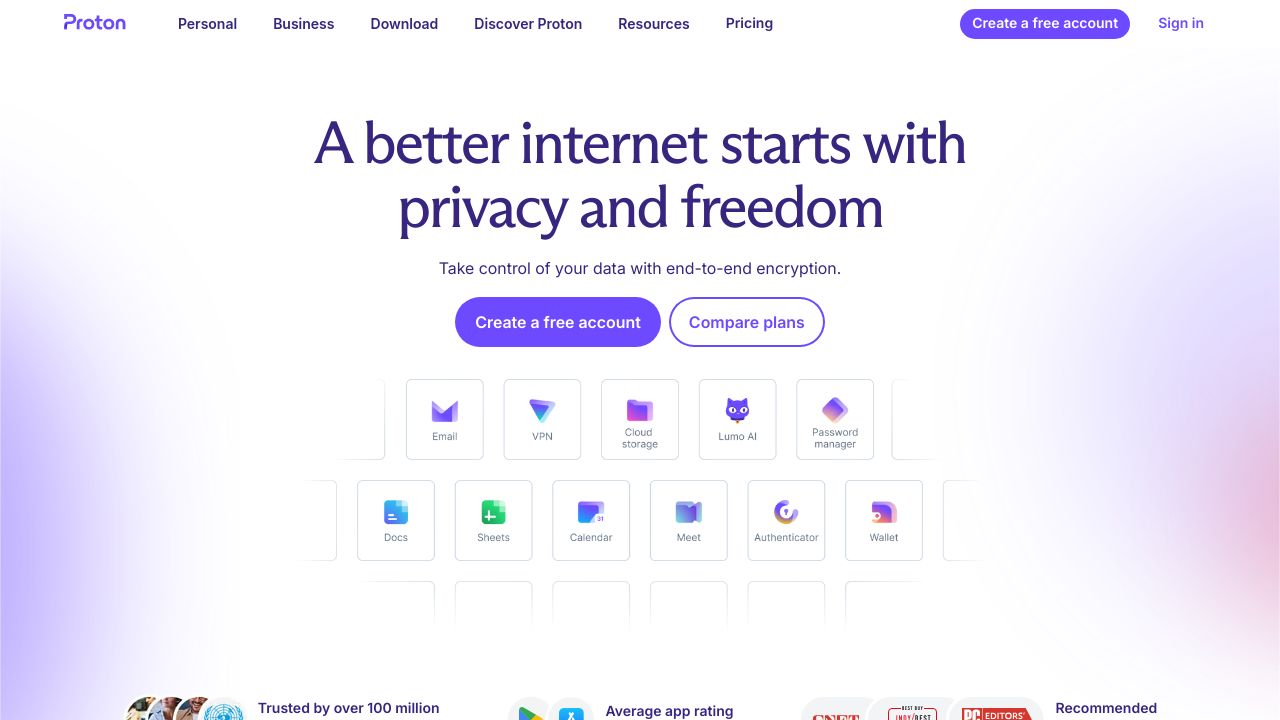
Proton.me uses ProtonSans, ProtonSerif, Inter and ABC Arizona Flare as its main typefaces. Consolas, Menlo, Segoe UI Emoji and Apple Color Emoji are declared as fallbacks. 16 fonts detected, last checked Sep 26, 2026.
Proton, a leader in online privacy, utilizes a thoughtful selection of fonts to connect with its audience of security-conscious users. The primary fonts, Inter and ABC Arizona Flare, alongside the custom ProtonSans and ProtonSerif, create a distinctive visual identity. These choices reflect the brand's commitment to clarity and accessibility. The variety in weights from 100 to 900 in ProtonSans and 200 to 700 in ProtonSerif enhances readability, aligning with Proton's mission to empower individuals in the digital realm.
font-family: 'ABC Arizona Flare', sans-serif;These fonts are listed in the CSS as backups. The browser only falls back to them if the main fonts above fail to load.
Proton.me primarily uses Inter, ABC Arizona Flare, ProtonSans, and ProtonSerif in their design. These custom fonts enhance readability and brand identity.
ProtonSans is versatile with weights from 100 to 900, while ProtonSerif offers a range from 200 to 700. They provide unique alternatives to common sans-serif and serif fonts.
Yes, proton.me uses fallback fonts such as Consolas, Menlo, and Segoe UI Emoji to ensure compatibility across different devices and browsers.